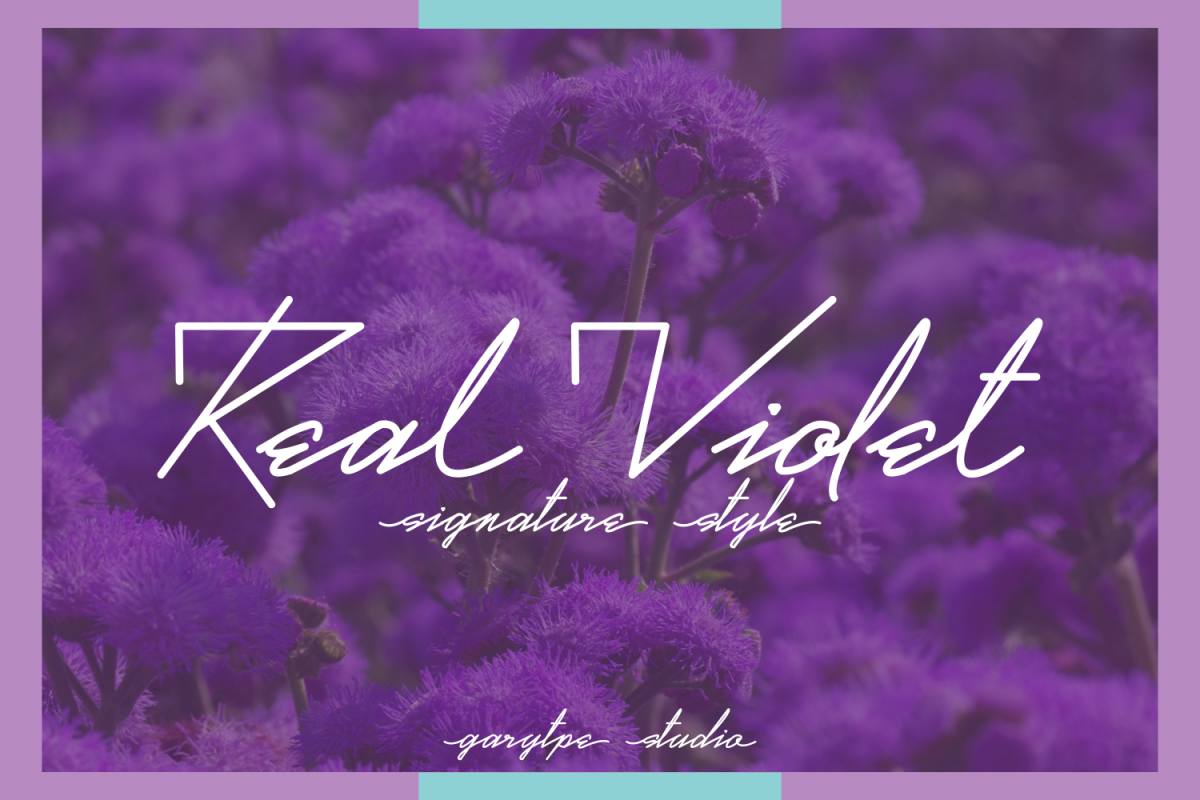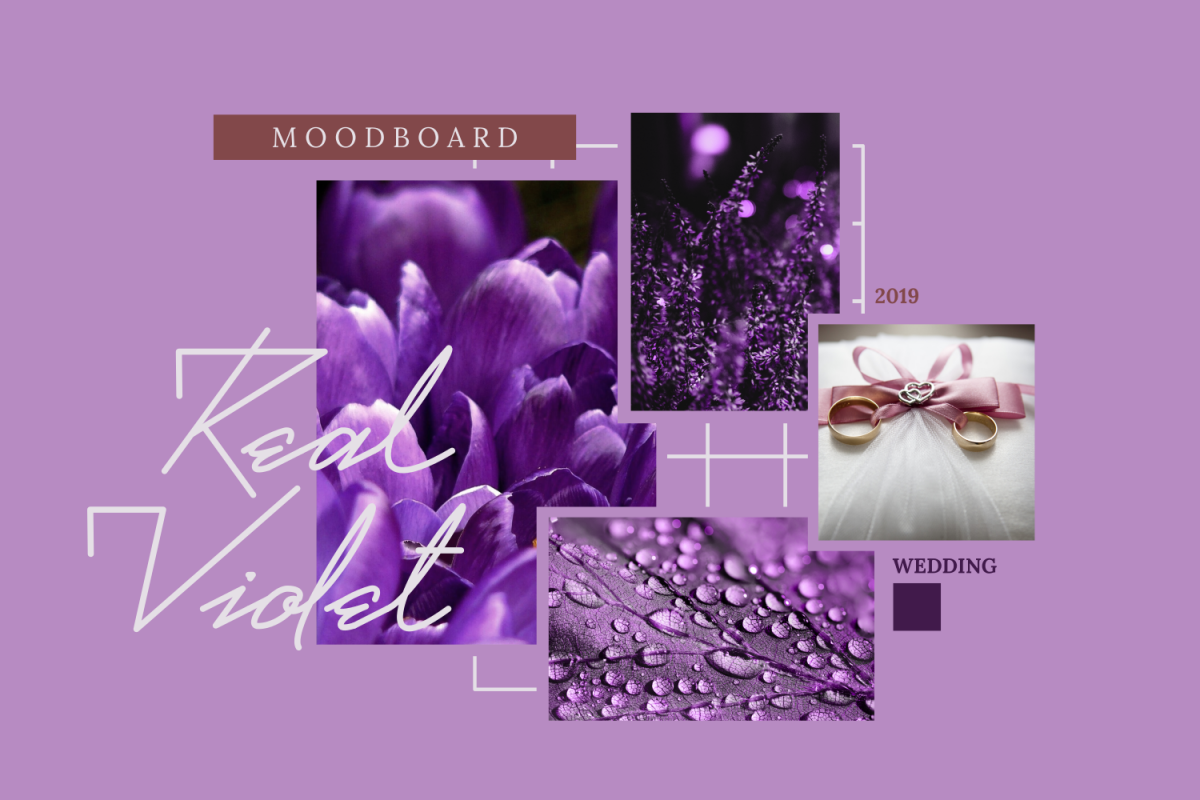
Real Violet - Signature Style Font
Introducing real violet, signature style fonts from us. Inspired by an elegant, beautiful, perfect life. Real violet is suitable for your needs such as mooboard, wedding, private signature quotes, watermarks, logo, etc.
• More than 246 glyphs (Include Uppercase, Lowercase, Numbers & Punctuation, Ligature)
• Suppport a lot of Multilingual
• PUA Encoded Character